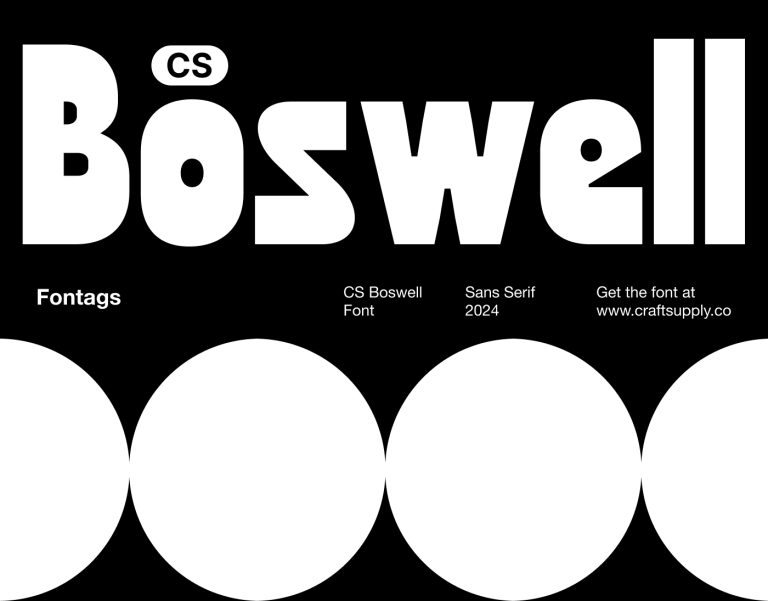
CS Boswell
Introducing : CS Boswell is a sans serif font that embraces boldness and injects a sense of fun with its unique design elements. It takes the clean lines of a traditional sans serif and amplifies them with thick strokes, rounded corners, and…
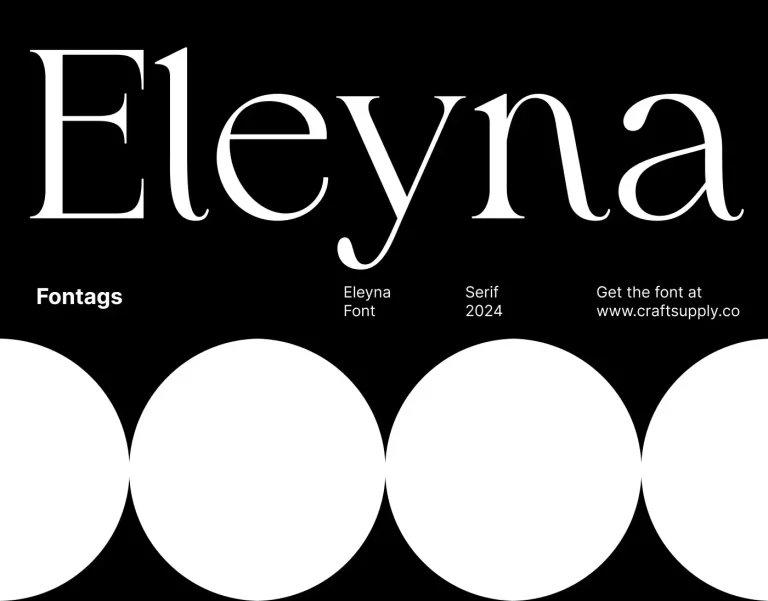
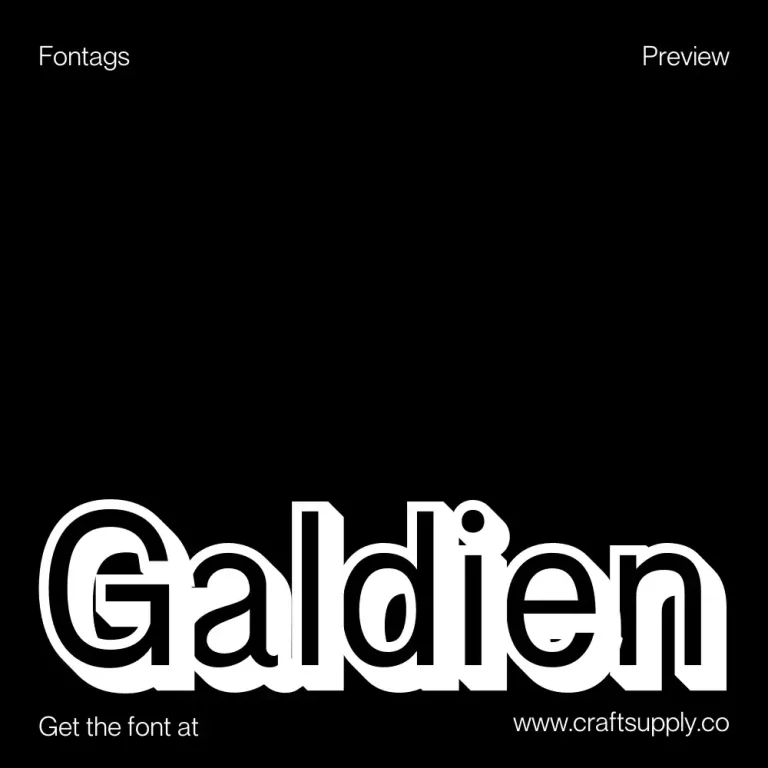Eleyna
Introducing : Eleyna, a serif font, emanates timeless elegance, capturing the essence of sophistication with each gracefully sculpted letterform. Its design reflects a commitment to enduring style, making it an ideal choice for projects that demand a touch of classic refinement. Download
Galdien 3D
Introducing : Galdien 3D exudes a sense of formal elegance with its sleek sans serif design, further elevated by captivating 3D effects. Each character commands attention, making it perfect for eye-catching displays. Download
Galdien Rounded
Introducing : Galdien Rounded features a low-contrast sans serif design that exudes professionalism and clarity. Its clean lines and uniform stroke widths create a sense of order and neatness. The font boasts a tidy appearance, making it ideal for corporate…
Galdien Vintage
Introducing : Galdien Vintage, a sans serif font exuding vintage charm, seamlessly combines the appeal of a bygone era with modern design sensibilities. Crafted with hand-drawn precision, each character of Galdien Vintage carries a unique, artisanal touch, adding a layer of authenticity…
Galber Pixel
Introducing : Galber is a sans serif font with a condensed form and pixel vibe. Perfect for eye-catching displays, this font adds a modern and distinctive touch to your designs. With its space-saving design, Galber offers a condensed form that doesn’t compromise…
Galber 3D
Introducing : Galber 3D features a bold condensed design that commands attention with its compact and powerful appearance. The font boasts low contrast and a striking 3D effect, adding depth and dimension to each character for an eye-catching display. Download
Galber Rounded
Introducing : Galber Rounded features low contrast sans serif and rounded stem terminals, exuding a welcoming vibe. Its soft edges create a friendly and approachable feel, making it ideal for various design projects. With a condensed design, This font strikes a balance…
Galber Vintage
Introducing : Galber Vintage, a sans-serif font, exudes a timeless charm reminiscent of vintage aesthetics. Its design echoes the classic appeal of bygone eras. With a vintage stamp effect, each letter in Galber Vintage carries a rustic elegance, adding a…
Venio
Introducing : Infused with Art Deco sophistication, Venio, a double-line sans-serif font, brings timeless elegance to your designs. Venio ensures a bold yet refined aesthetic for logos and headlines, making your display stand out with its distinctive double-line design. Download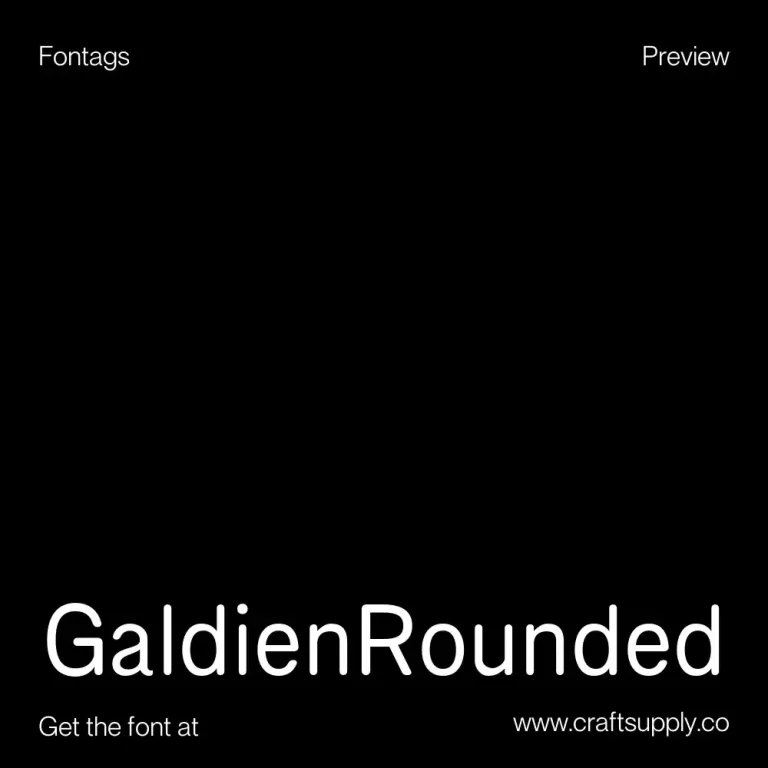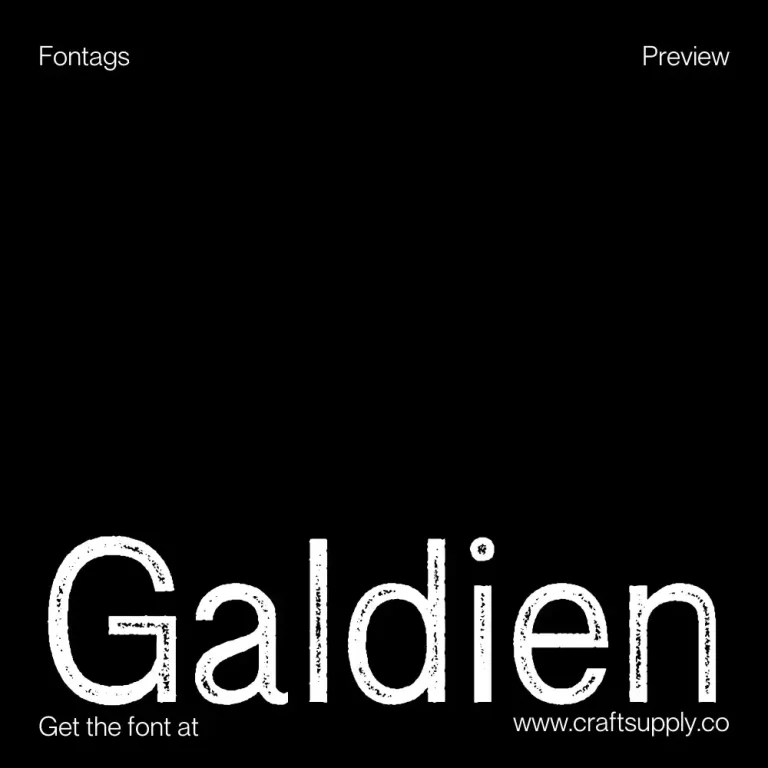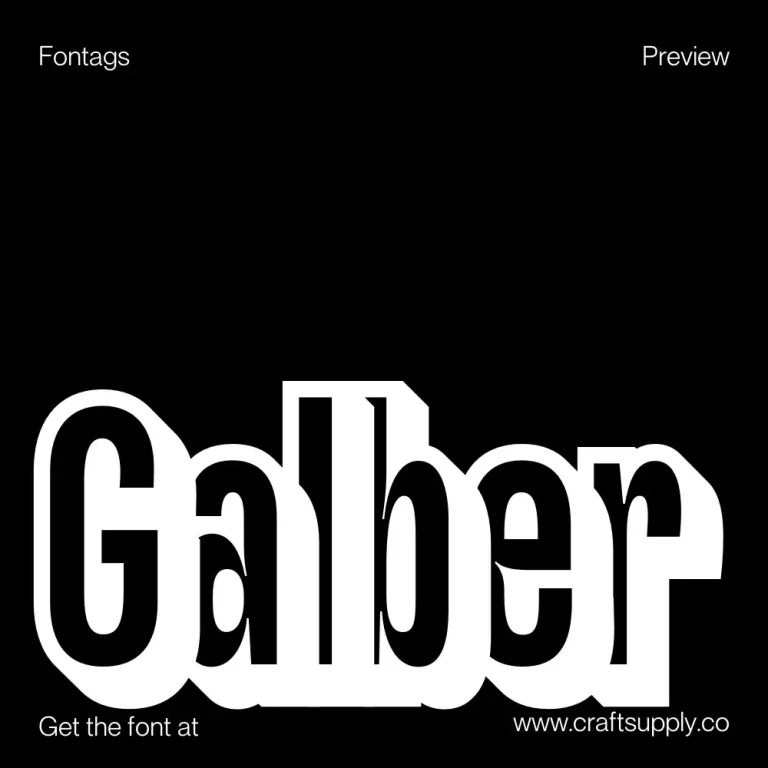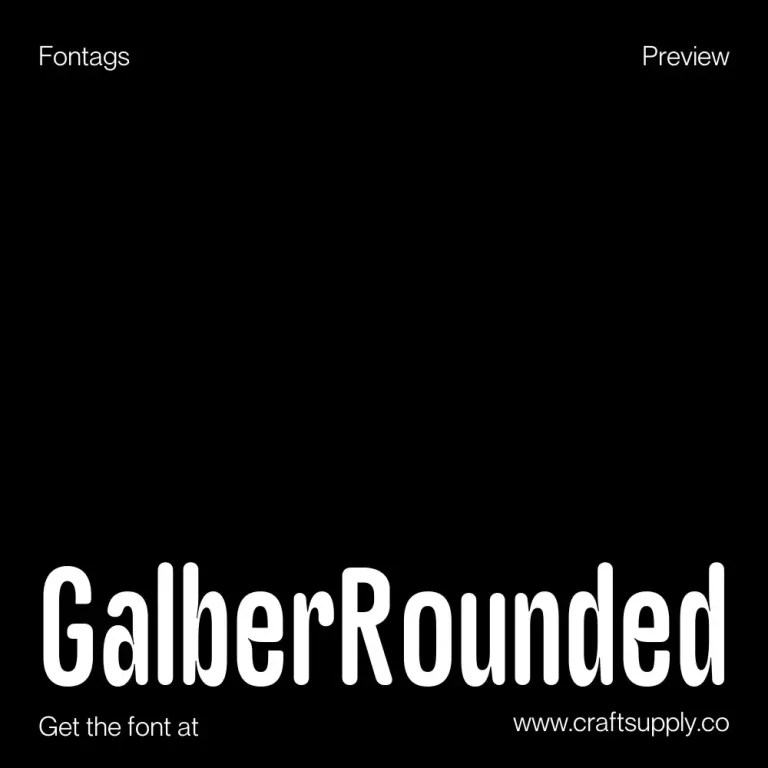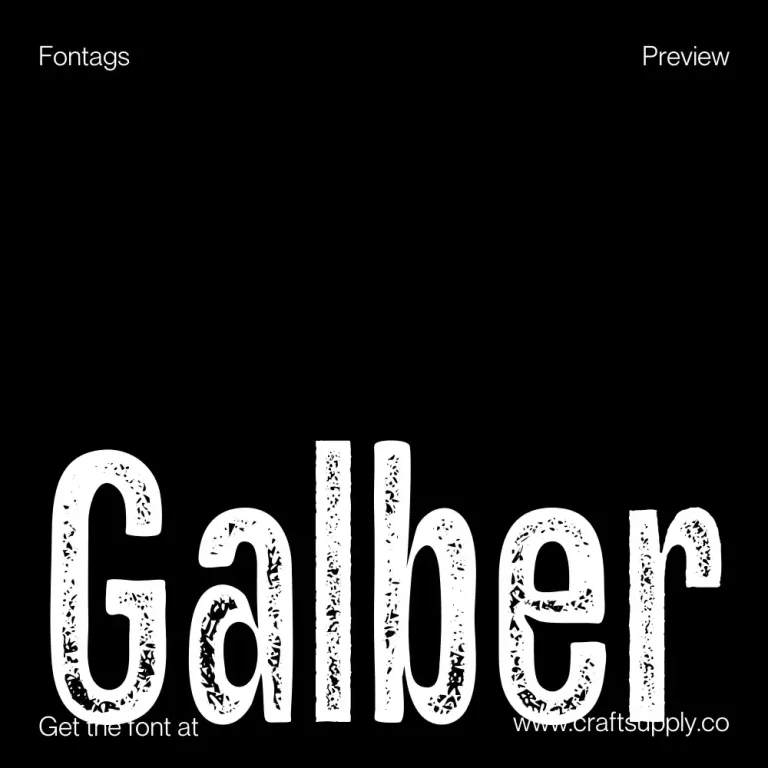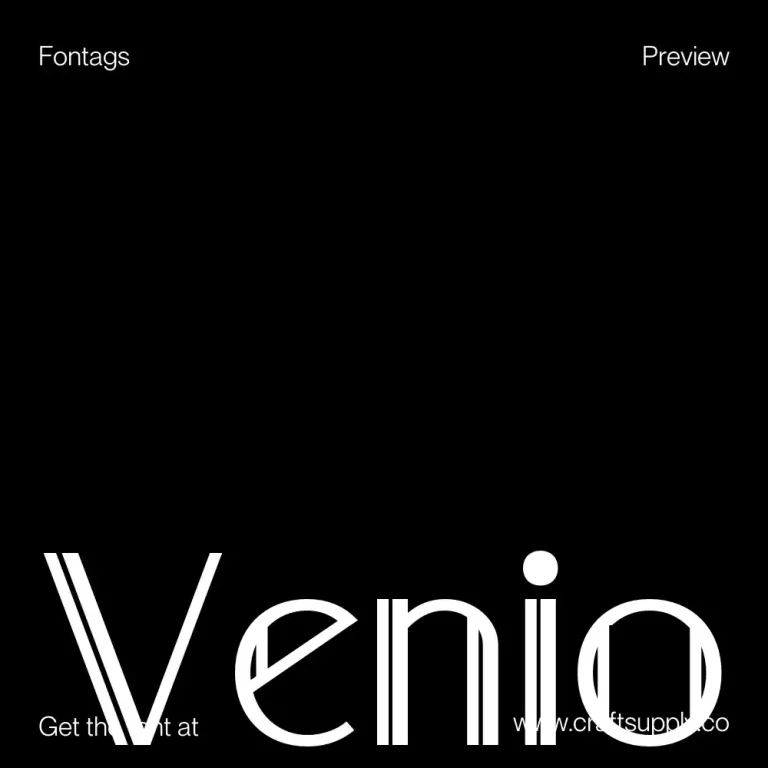